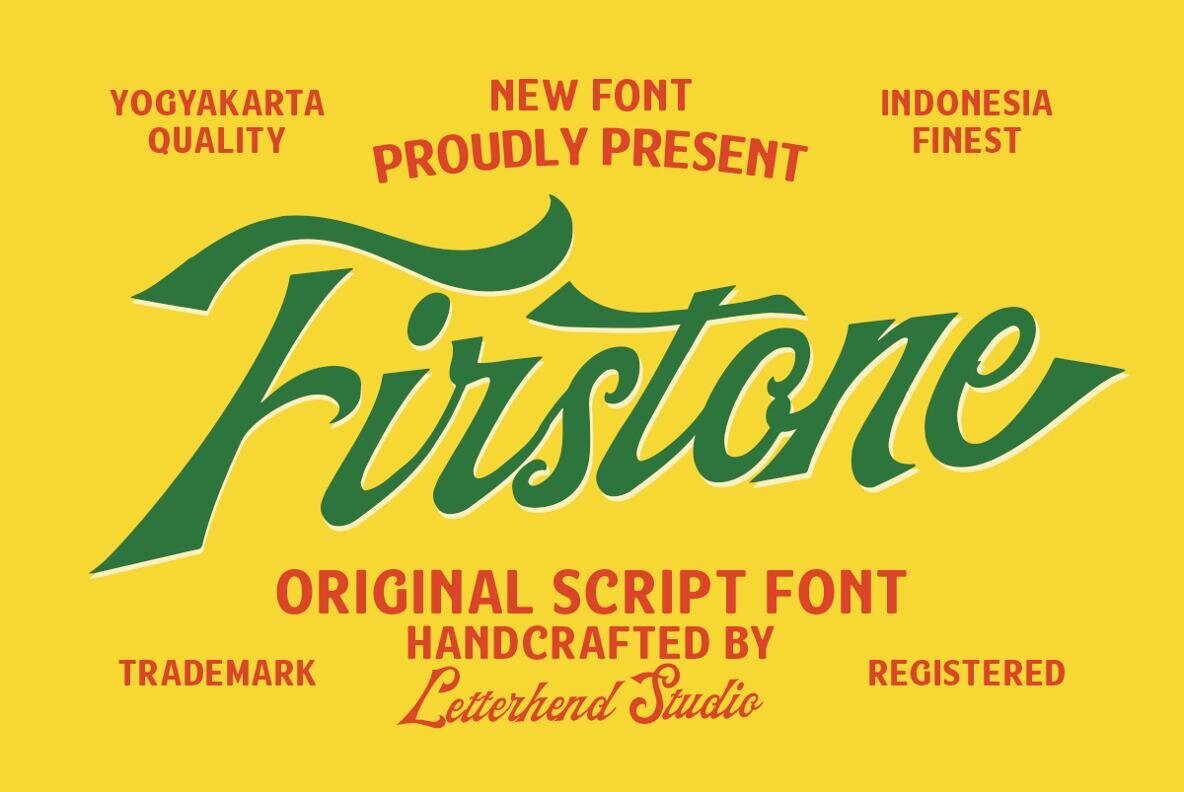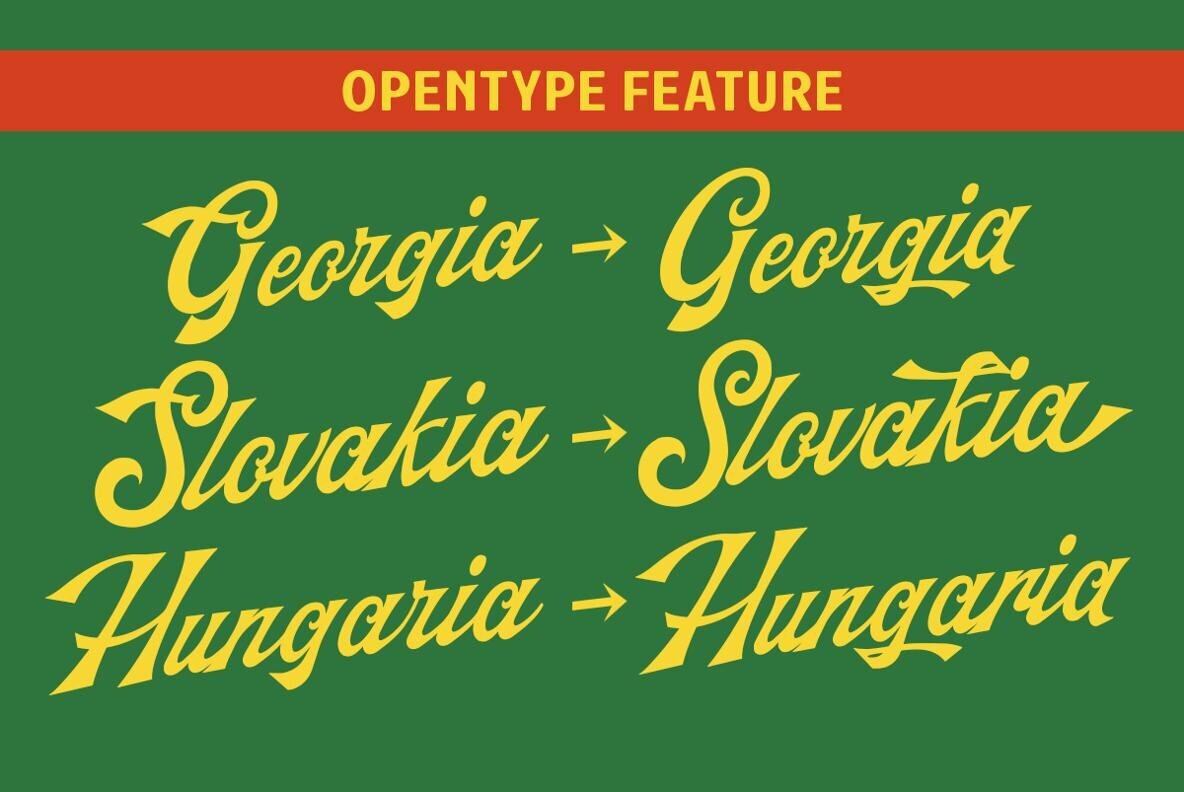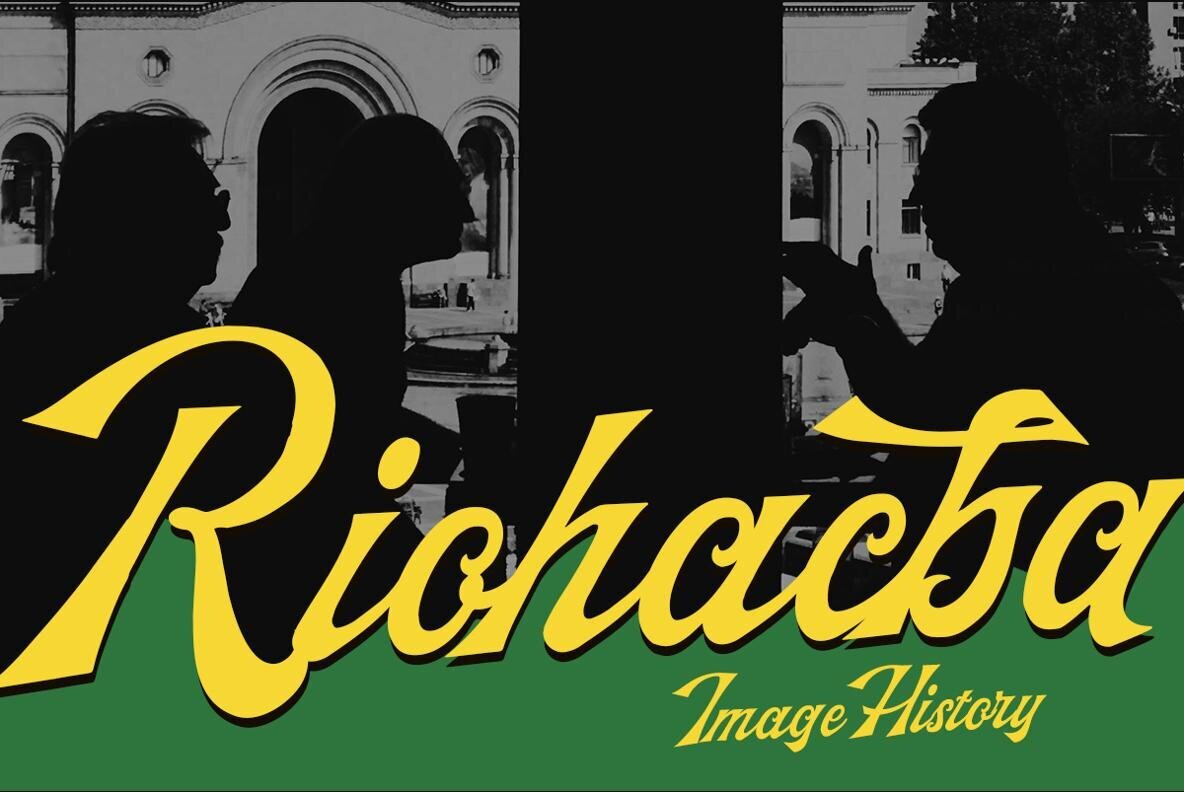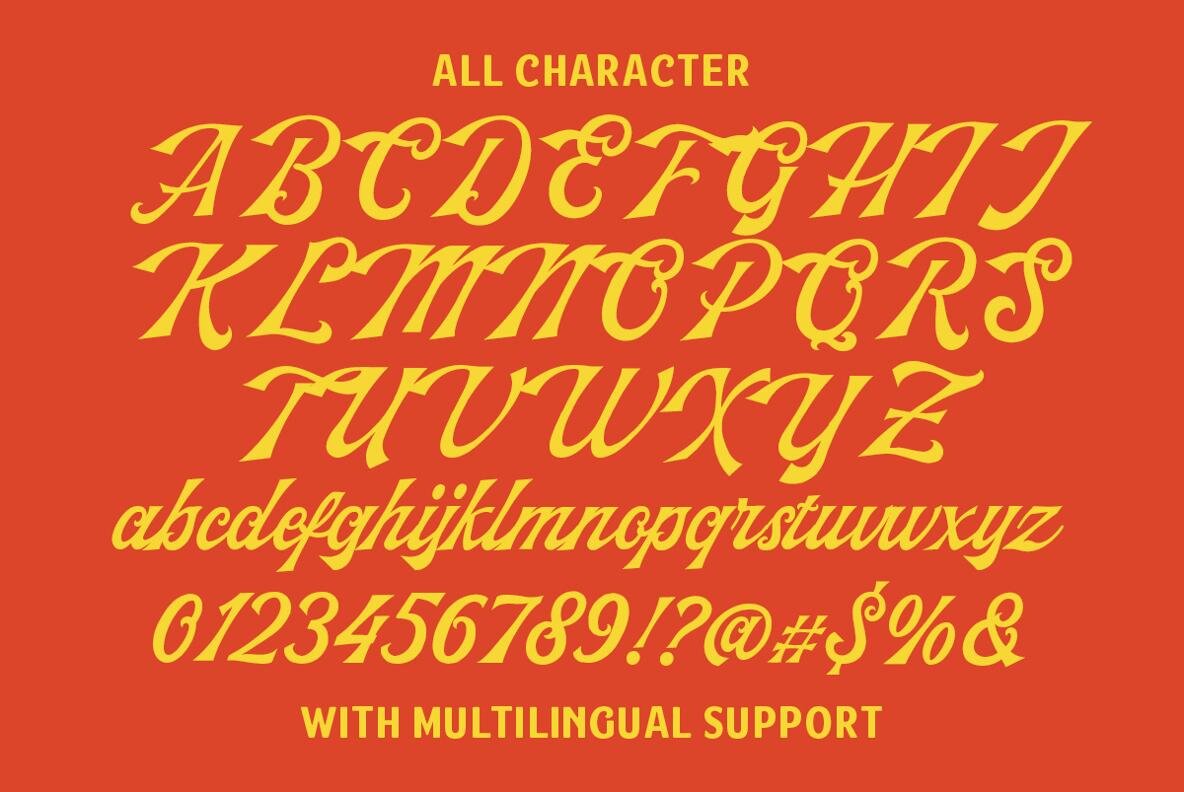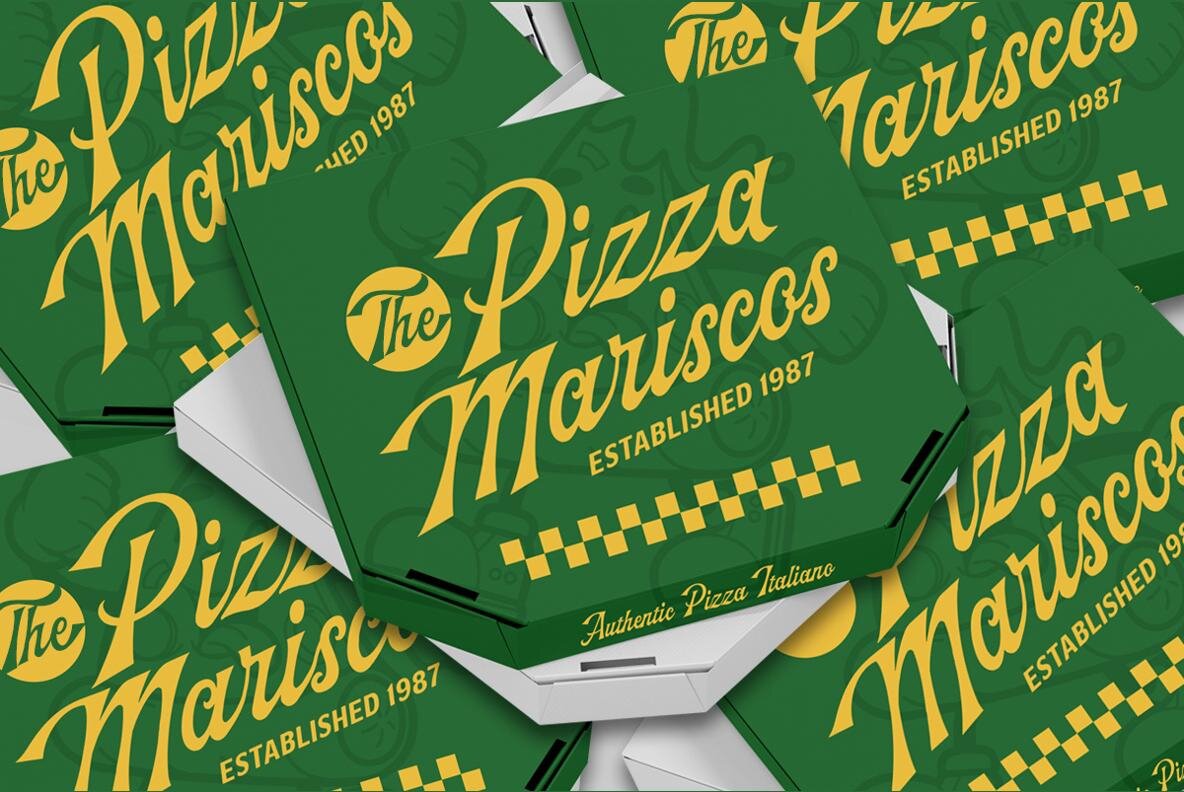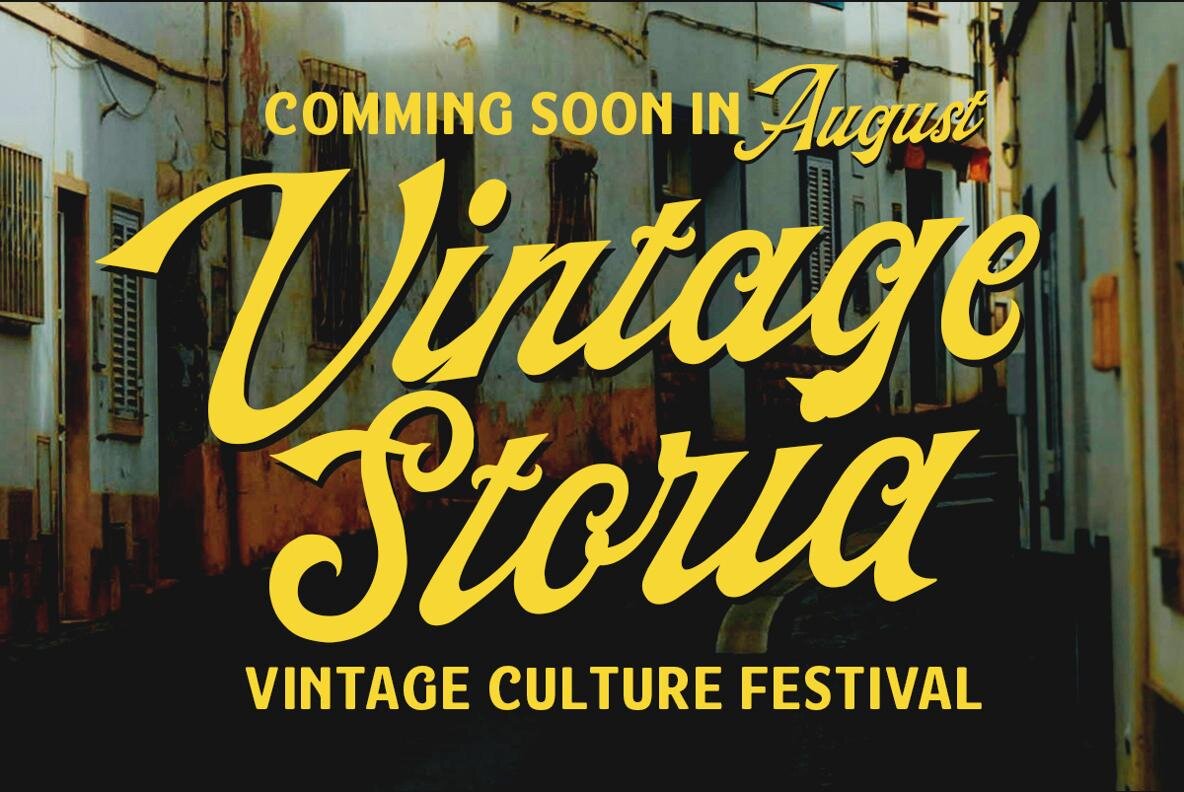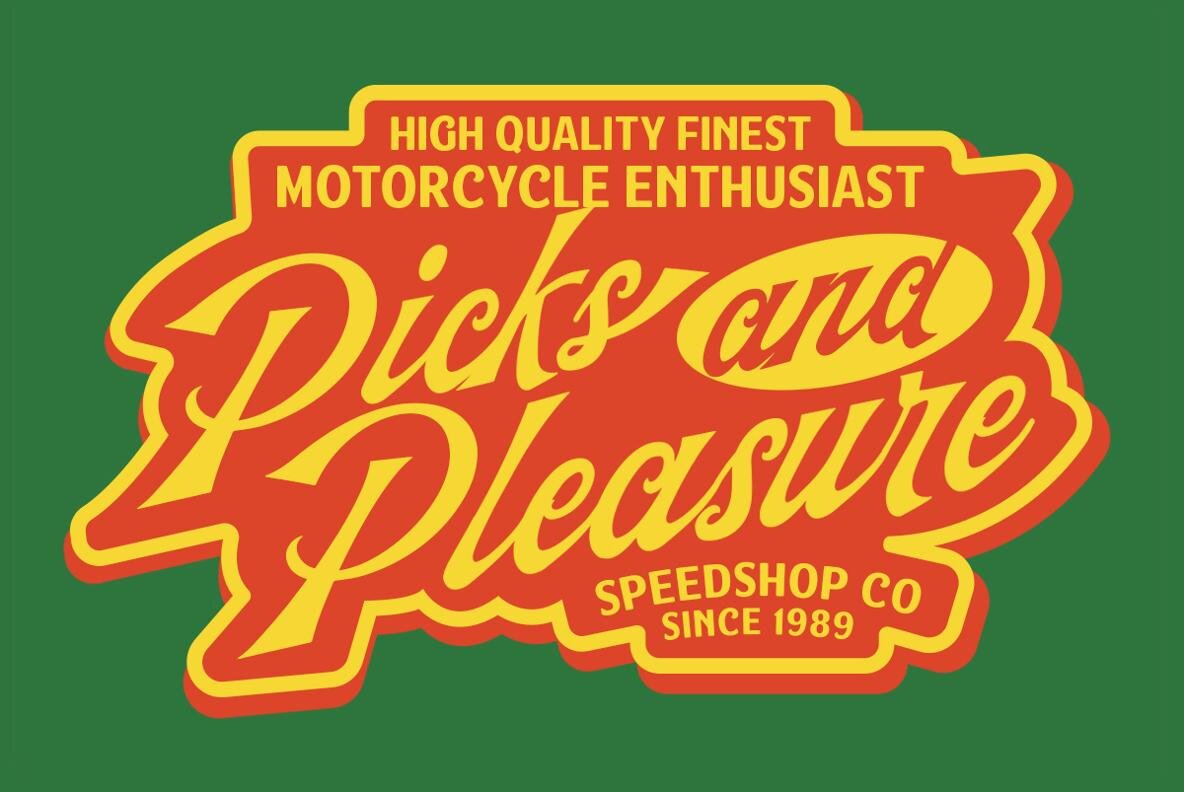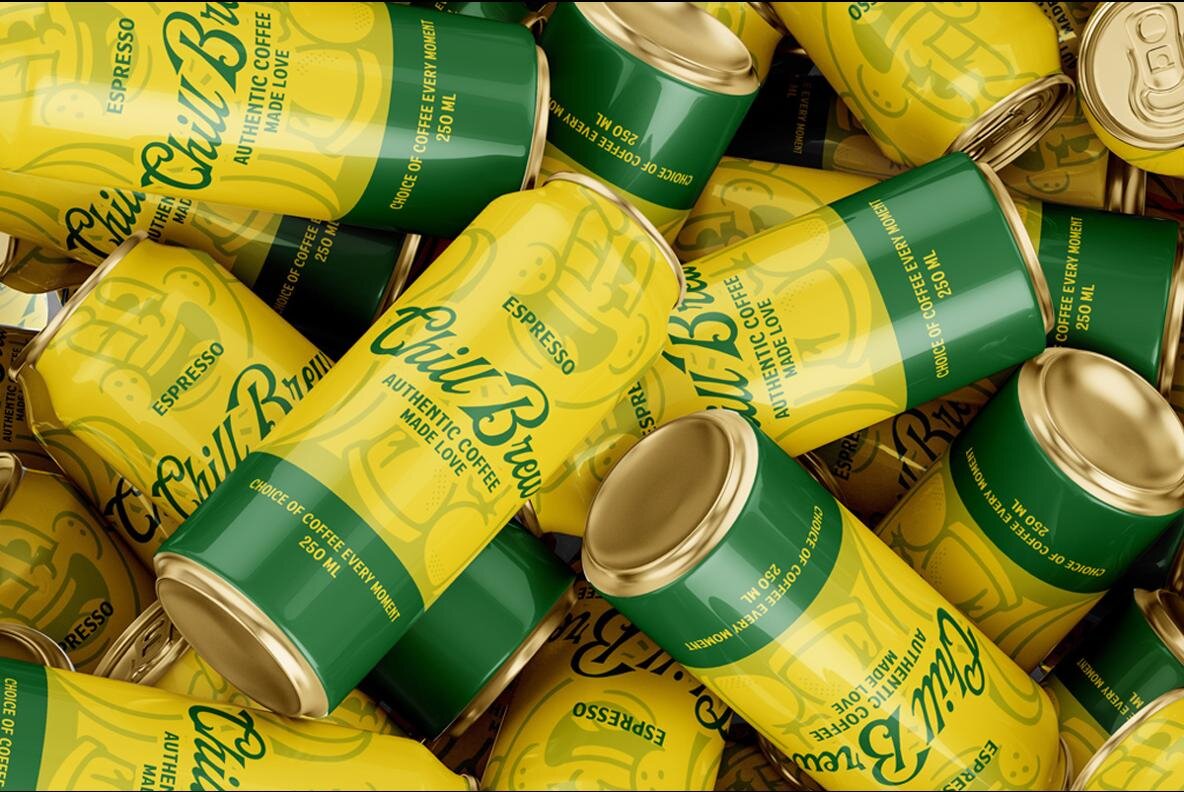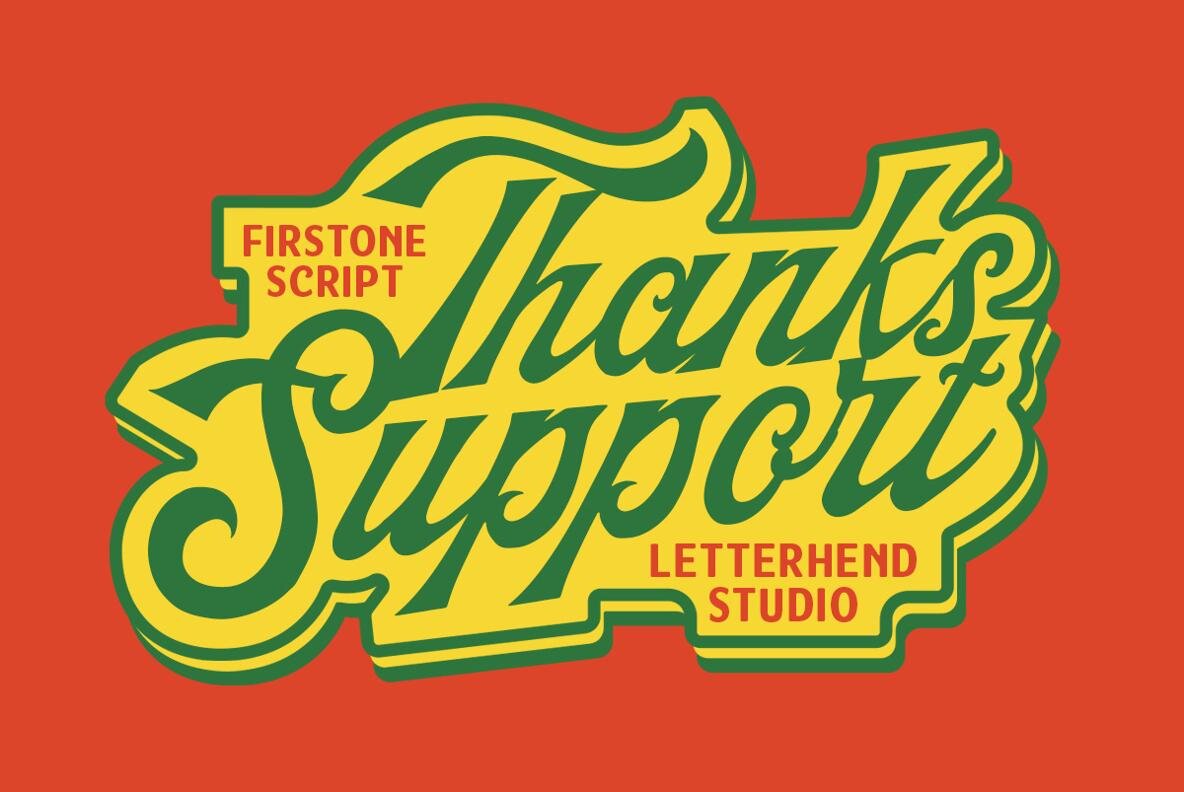
Firstone Font
Firstone Regular
Bring boldness and charm to your design projects with Firstone, a vibrant script font exuding a handcrafted essence. Its smooth, confident curves harken back to classic sign painting, making it an ideal choice for logos, packaging with retro vibes, posters, signage, and headlines. This font seamlessly combines energy and character with a touch of timeless allure. To fully leverage Firstone's potential, we recommend employing design software that supports OpenType features and includes Glyphs panels, such as Adobe applications and Corel Draw. This allows you to access and utilize all available glyph variations.Firstone: A Dynamic Script with Vintage Flair